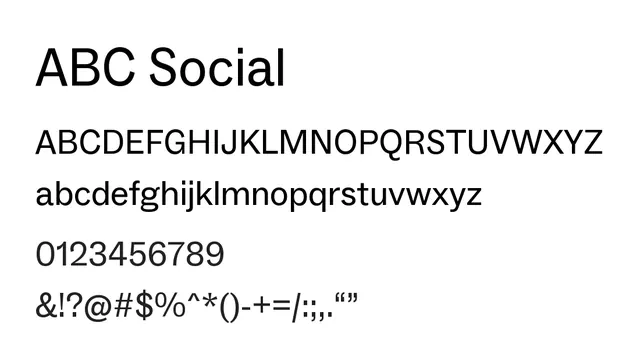
ABC Social
A clean, geometric sans-serif with well-balanced proportions and excellent legibility; suitable for body text and interface work.
Excellent choice for body text across SaaS platforms, digital publications, and modern websites. The geometric structure and open letterforms provide clarity without sacrificing warmth or approachability.
Works seamlessly with ABC Social Mono for typographic contrast, or with ABC Solar for hierarchical distinction between body and display text.